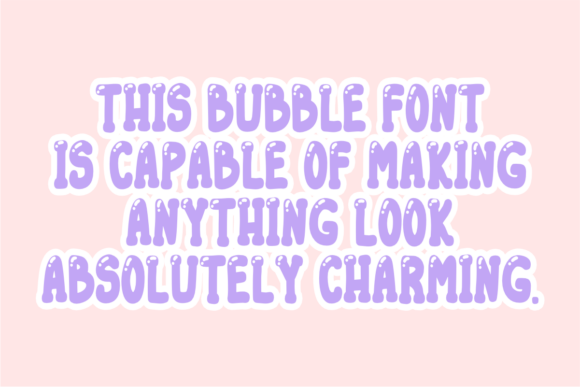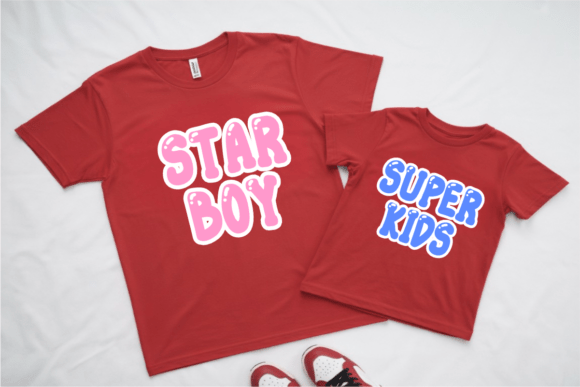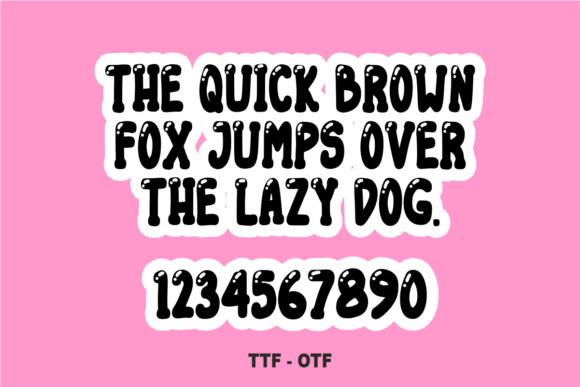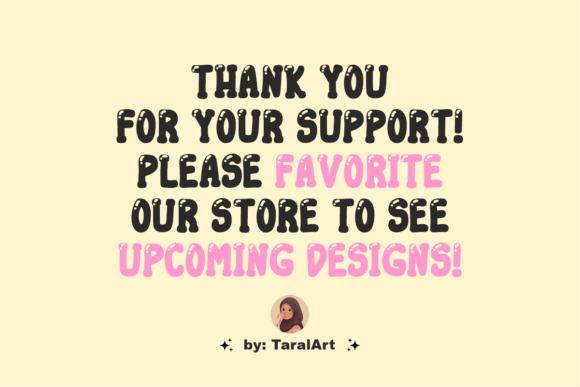
Introducing Hello Bubble Font: The Sweetest Addition to Your Design Arsenal
Are you tired of using the same old fonts in your designs? Look no further than Hello Bubble, a stunning, high-impact display font that’s sure to make a statement. Characterized by its massive, perfectly rounded, bubble-gum letterforms, Hello Bubble is the perfect choice for designers seeking a cute, modern, and intensely bubbly aesthetic.
The Perfect Blend of Fun and Sophistication
Hello Bubble features an incredibly glossy, soft texture and a radiant pink hue that screams fun, sweetness, and modern playfulness. This font has a bold, commanding presence while maintaining an undeniably lighthearted and friendly tone, making it highly versatile for creative projects. Whether you’re designing a catchy headline, a fun t-shirt, or a cheerful product package, Hello Bubble is the perfect choice.
The uses for Hello Bubble are endless, and its versatility is one of its most appealing features. Here are just a few ideas to get you started:
- Catchy Headlines: Use Hello Bubble to create attention-grabbing headlines that will draw readers in and make them smile.
- Fun T-Shirt Designs: Hello Bubble is perfect for designing fun and playful t-shirts that are sure to be a hit.
- Social Media Branding: Add a touch of whimsy to your social media branding with Hello Bubble, and make your brand stand out from the crowd.
- Cheerful Product Packaging: Use Hello Bubble to create eye-catching product packaging that’s sure to delight customers, especially for candy or cosmetics.
- Logos for Sweet Shops or Children’s Brands: Hello Bubble is the perfect choice for designing logos that are fun, playful, and memorable.
Readability and Lovability
One of the standout features of Hello Bubble is its thick, well-defined strokes and smooth curves, making it effortlessly readable and immediately lovable. This font is designed to be easy to read, even at large sizes, making it perfect for headlines, titles, and other display text.
Bring a Burst of Energy to Your Designs
Hello Bubble is more than just a font – it’s a design statement. With its vibrant, energetic burst of sweetness, this font is sure to bring a smile to your customers’ faces and make your designs unforgettable. Whether you’re a designer, craft, or DIY enthusiast, Hello Bubble is the essential typeface for anyone seeking a cute, modern, and intensely bubbly aesthetic.
Why Choose Hello Bubble?
So why choose Hello Bubble over other fonts? Here are just a few reasons:
- Unique and Memorable: Hello Bubble is a one-of-a-kind font that’s sure to make your designs stand out.
- Versatile: This font can be used for a wide range of design projects, from headlines and titles to logos and product packaging.
- Easy to Read: Hello Bubble’s thick, well-defined strokes and smooth curves make it effortlessly readable, even at large sizes.
- Fun and Playful: This font is perfect for designers who want to add a touch of whimsy and fun to their designs.
In conclusion, Hello Bubble is a stunning, high-impact display font that’s sure to make a statement in your designs. With its unique and memorable letterforms, versatile design possibilities, and effortlessly readable and lovable aesthetic, this font is the perfect choice for designers seeking a cute, modern, and intensely bubbly aesthetic. So why wait? Download Hello Bubble today and bring a vibrant, energetic burst of sweetness to your work!